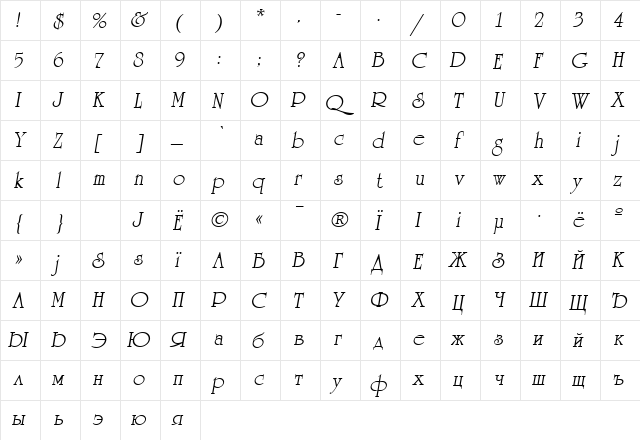
University Italic
Design Context for University Typeface
University takes a measured approach to typography — its balanced proportions and neutral character make it a reliable workhorse for both digital and print work. The slanted form adds forward momentum and visual energy.
Pro Tip: Try University for annotation and caption copy alongside an upright companion — the contrast in angle creates a dynamic but ordered typographic system.